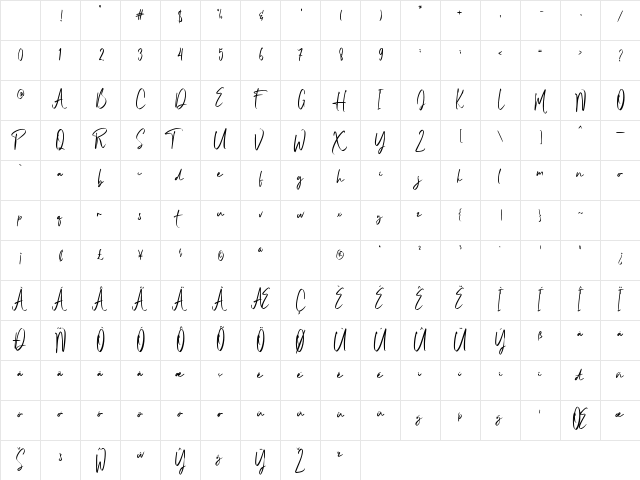
Complete Ballomont Regular glyph index. Displaying only characters natively supported by Ballomont Regular font.
Ballomont is a composed and adaptable typeface that performs quietly and consistently across a wide range of design contexts.